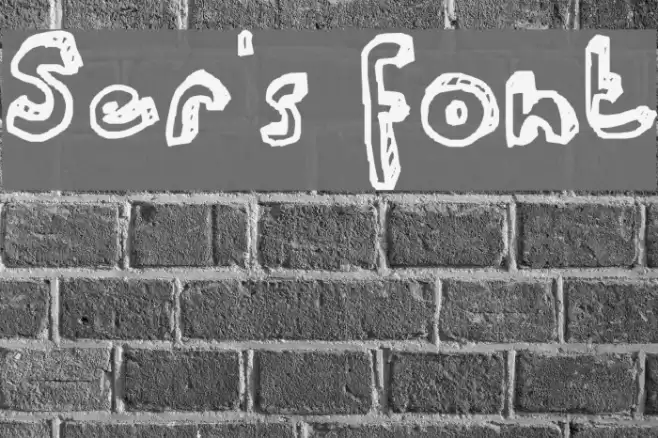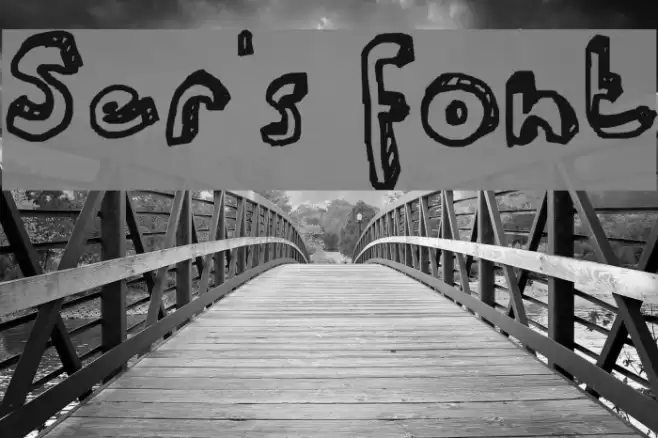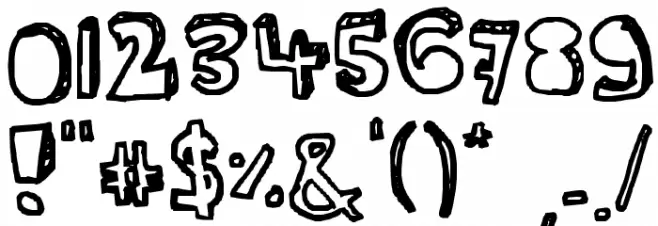
Ser's font Font
Ser's font Description
This font exhibits a playful and bold style, characterized by its hand-drawn appearance. The letters are irregular and have a doodle-like quality, with thick strokes and uneven edges that give it a casual, artistic feel. The uppercase and lowercase letters maintain a consistent style, while the numbers and special characters add to its quirky charm. This font is perfect for projects that require a fun and informal touch, such as children's books, comic strips, or creative posters. Its unique design makes it stand out, capturing attention with its lively and energetic vibe.
A playful, hand-drawn font with a bold and quirky style from Uncategorized fonts.
- Proposed Projects: Ideal for children's books, comic strips, creative posters, and informal branding.